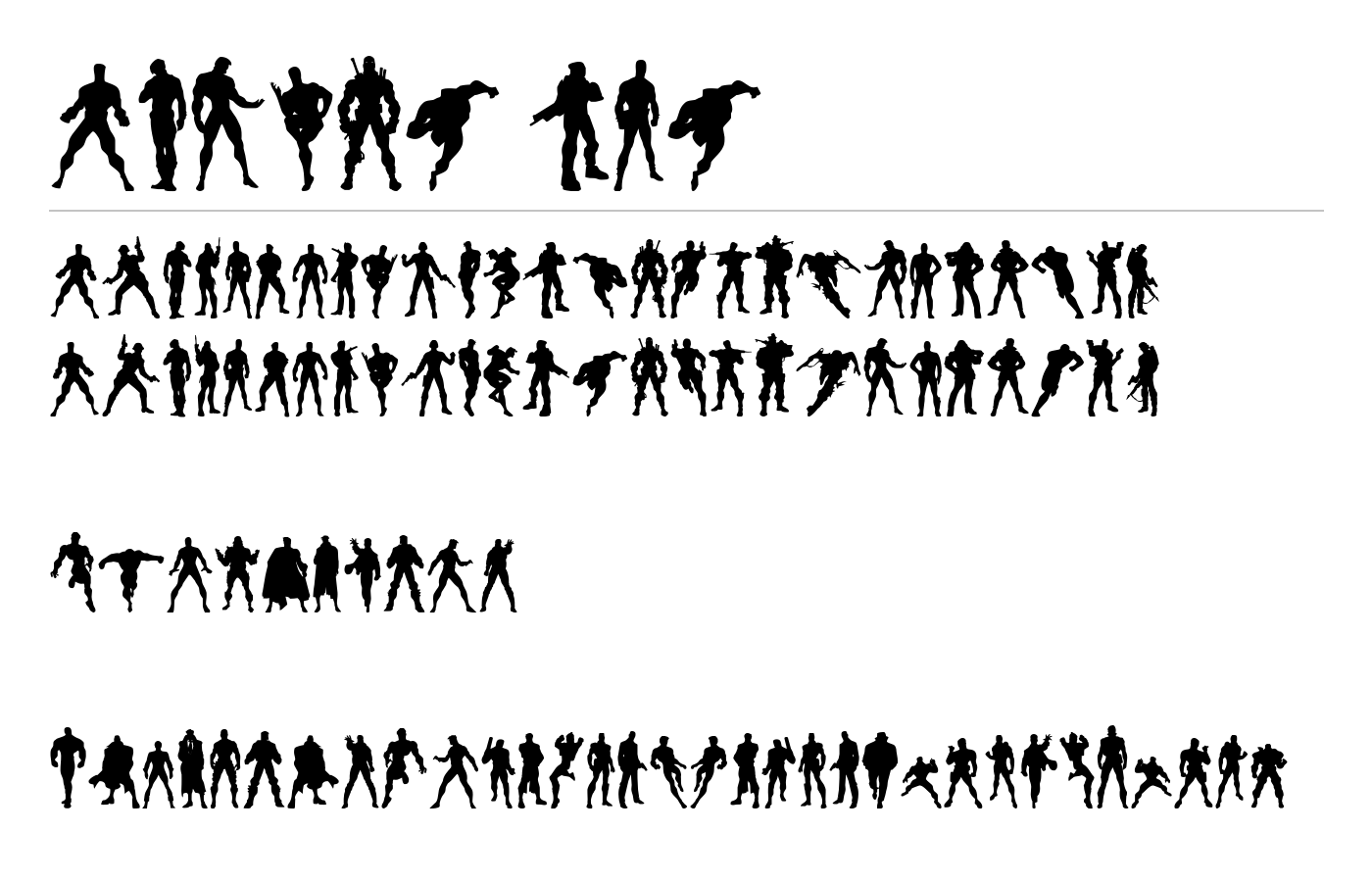
Action Men Font is a bold, dynamic display typeface made up entirely of detailed silhouettes of action-hero figures in powerful, energetic poses. This unique font brings a strong, adventurous, and playful vibe, perfect for designs in entertainment, comics, gaming, or youth-oriented branding that want to convey excitement and heroism. Its distinctive character shapes demand attention, making it ideal for eye-catching headlines, posters, and logos.
Action Men Font